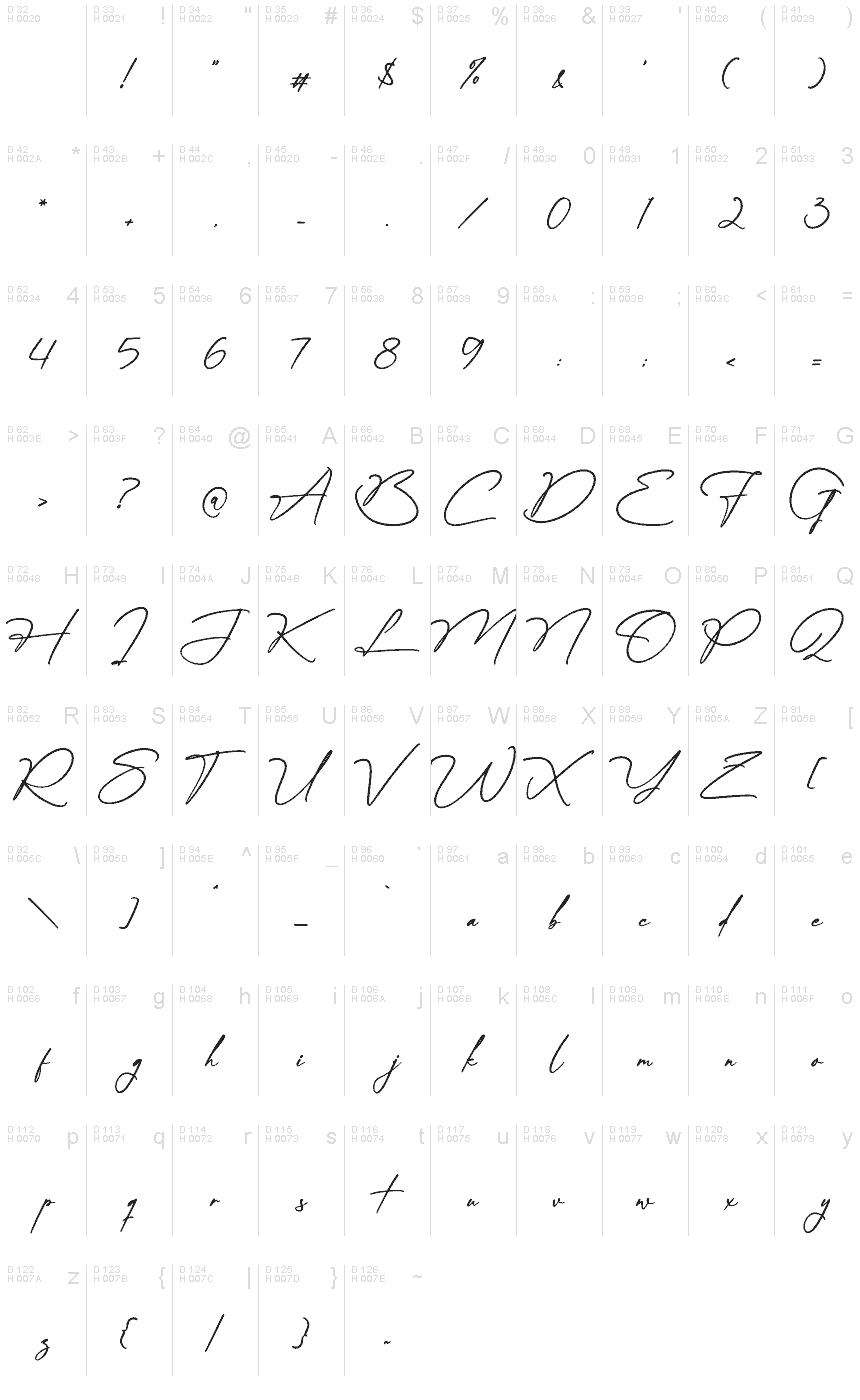
Frathaman Holland font was designed by Letterena Studios and is the ultimate combination of expressive elegance with a highly sophisticated aesthetic. Stylish, trendy, and so full of soul, it channels high-fashion vibes with its signature style and handwritten quality. The stylish flow is done with expert control so each stroke feels natural, gliding like an artist’s paintbrush across canvas.
This free handwritten font is set to excel for logo design in particular. It can also do wonders for packaging projects, personal signatures, banners and posters. Menus will have a nice effect as will business cards or invitations among others! Use it confidently for beauty context especially.